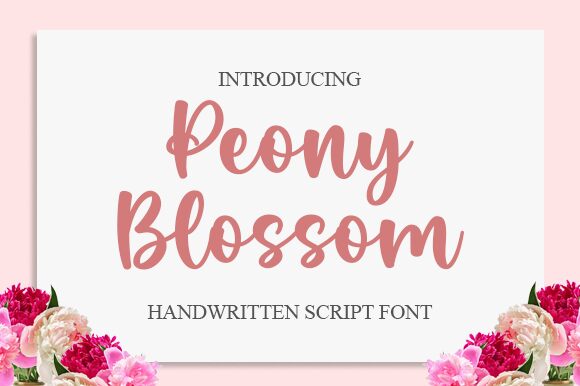
Peony Blossom, designed by Nirmala Creative, is a captivating and versatile smooth brush font that effortlessly adds a touch of elegance and playfulness to any project. With its fluid strokes and organic feel, this font lends itself perfectly to branding projects, greeting cards, wedding invitations, and feminine-themed designs. Its delicate curves make it ideal for fashion magazines, beauty blogs, and product packaging. Whether you're looking to create whimsical logos or eye-catching social media graphics, Peony Blossom's smooth brush style guarantees an exquisite and modern look that will leave a lasting impression.
Peony Blossom